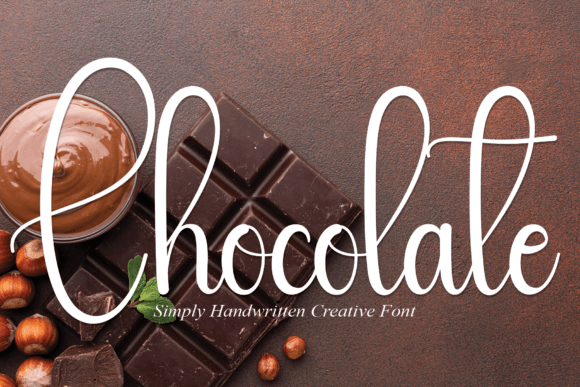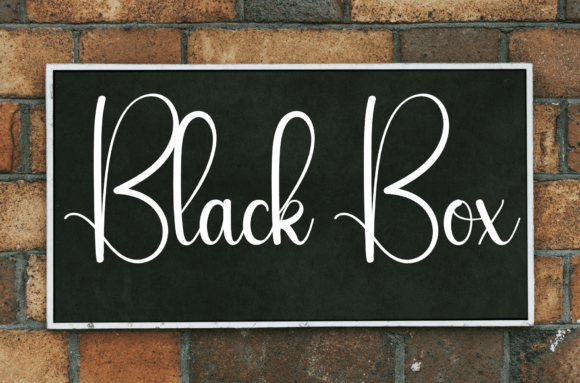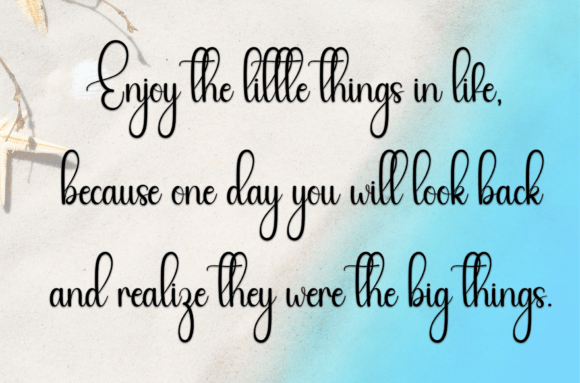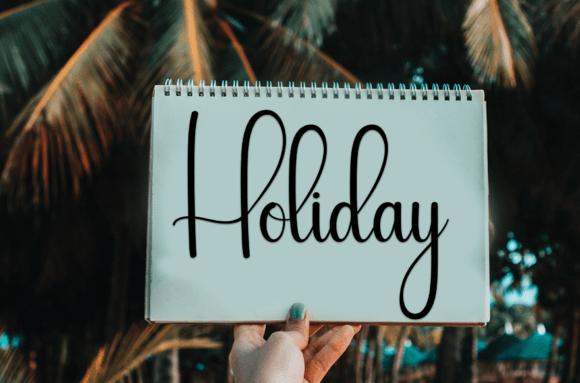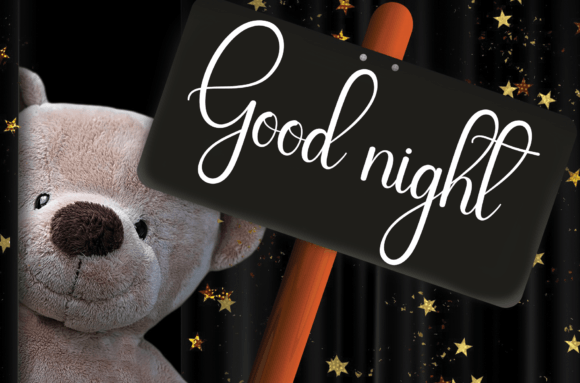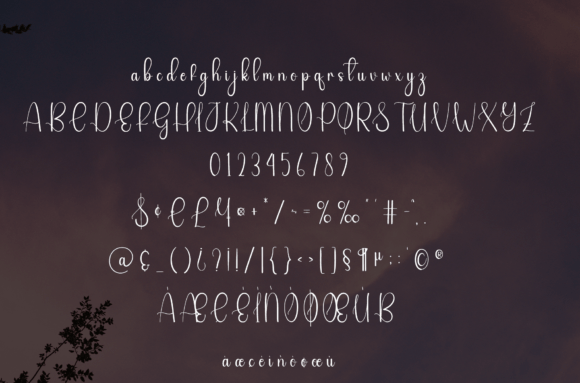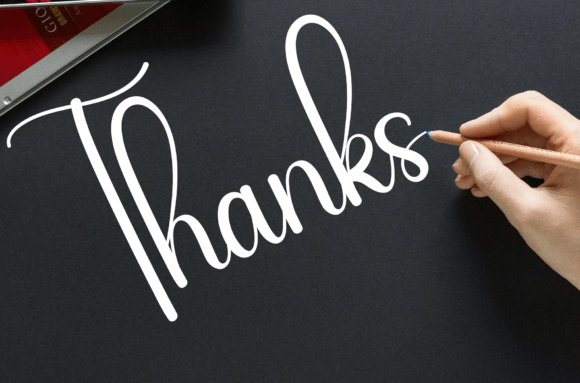
Chocolate Font
What Is Chocolate Font?
Chocolate Font is a sweet and friendly handwritten script designed to bring a warm, personal touch to your creative projects. Each letter has a smooth, flowing shape that feels playful and genuine. The font combines modern simplicity with charming details, making it perfect for designs that need a handcrafted look.
With Chocolate Font, you can create work that feels approachable, heartfelt, and unique.
Chocolate Font is versatile and adapts to a wide range of applications. For example, it looks beautiful on wedding invitations, save-the-date cards, and thank-you notes. The handwritten style adds romance and sincerity that guests will love.
Greeting cards for birthdays, holidays, or special milestones also benefit from Chocolate Font’s cute, inviting character. The smooth strokes make every message feel more personal and meaningful.
Small businesses and creative brands use this font in logos and branding materials. Boutiques, artisan shops, and bakeries often rely on handwritten scripts to express authenticity and warmth. Chocolate Font helps you build a brand that feels friendly and memorable.
You can also use this font in social media graphics. Quotes, announcements, and promotions stand out with a consistent, stylish look. Whether you’re designing posts for Instagram, Facebook, or Pinterest, Chocolate Font adds personality that attracts attention.
Additionally, Chocolate Font works perfectly for product packaging and labels. From handmade candles to gourmet treats, it gives your products a cozy, high-quality feel.
Why Should You Choose Chocolate Font?
One of the best reasons to use Chocolate Font is its readability. Despite its playful style, every letter stays clean and easy to read at any size. Whether you’re designing a small label or a large banner, your text will always look polished.
Another advantage is how easily it pairs with other fonts. You can combine Chocolate Font with simple serif or sans-serif typefaces to balance its decorative script. This approach helps your designs stay professional while feeling warm and inviting.
Designers also appreciate that Chocolate Font saves time. Every glyph is crafted to look refined straight out of the box, so you can create beautiful designs faster.
Chocolate Font helps your work feel authentic and approachable. The handwritten look creates an emotional connection with your audience, which is important for projects celebrating life’s special moments.
The smooth, rounded letters add a touch of creativity and joy. Even simple layouts feel more engaging and unique when you use Chocolate Font.
Choosing a high-quality handwritten script shows you care about detail and presentation. Clients and customers will notice this extra effort, helping you build trust and strengthen your brand’s image.
Chocolate Font is more than a cute handwritten script—it’s a creative tool that helps you share your ideas with charm and personality. From wedding invitations to logos and social media content, this font adapts to many uses and always makes a positive impression.